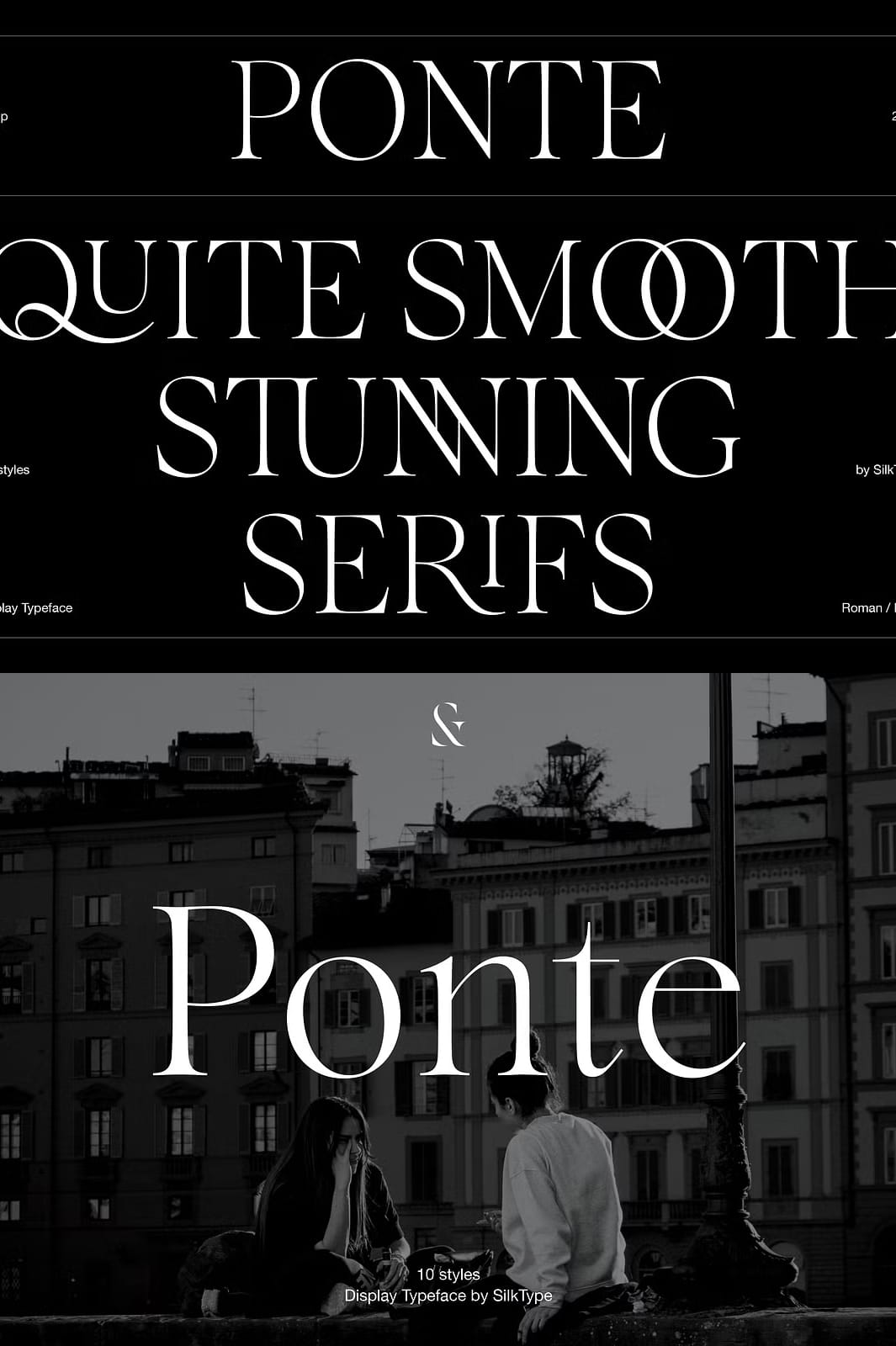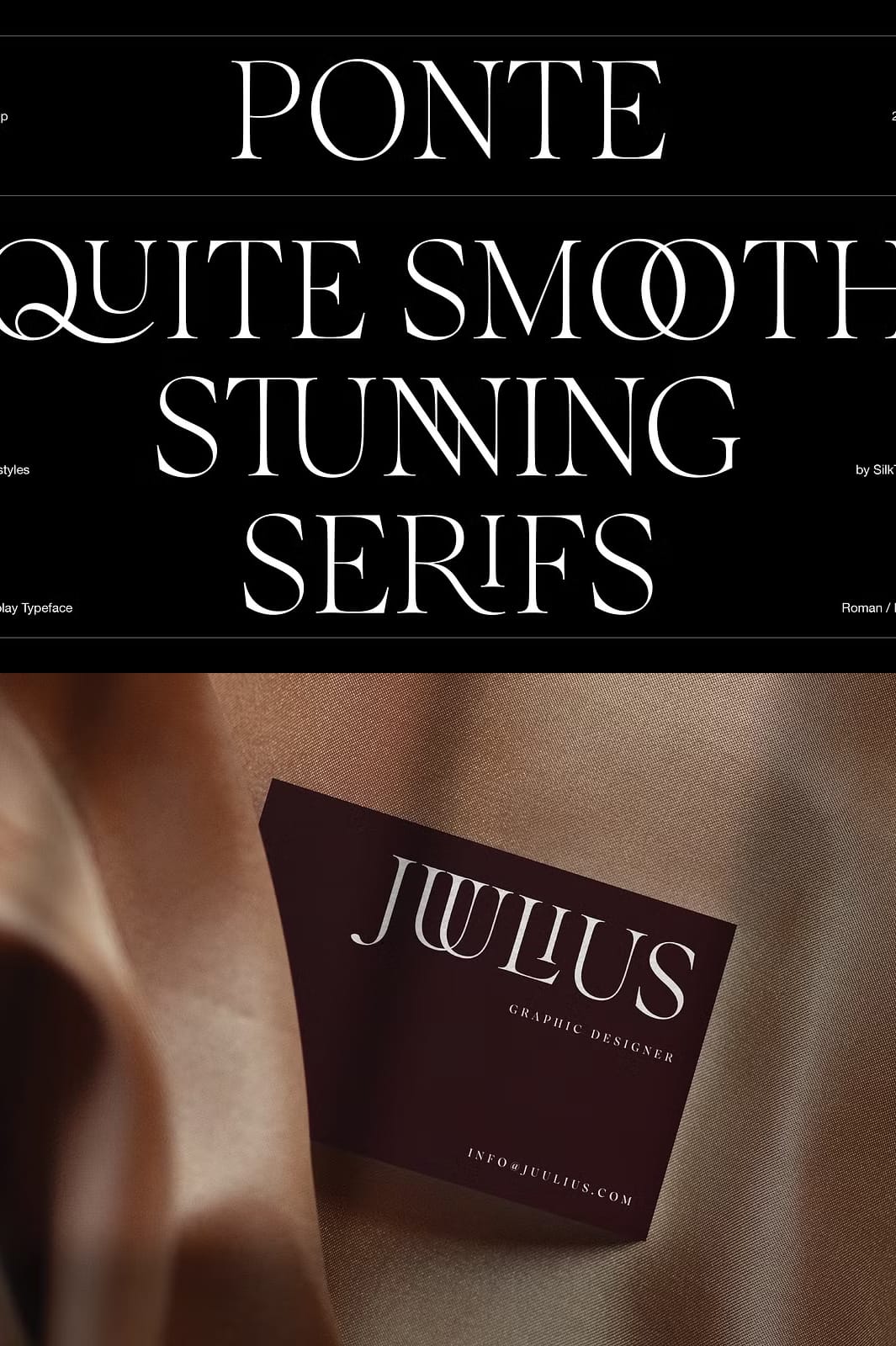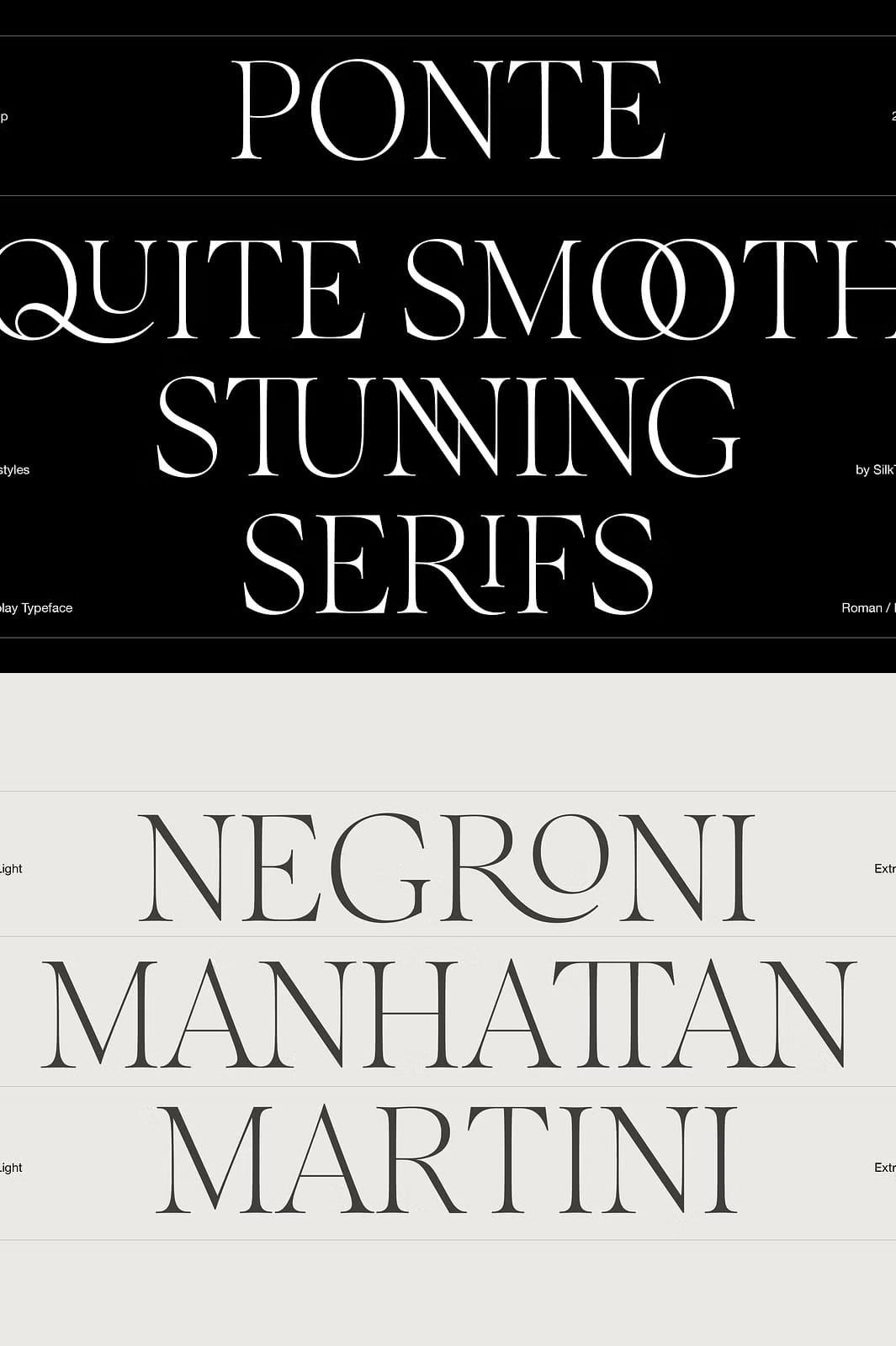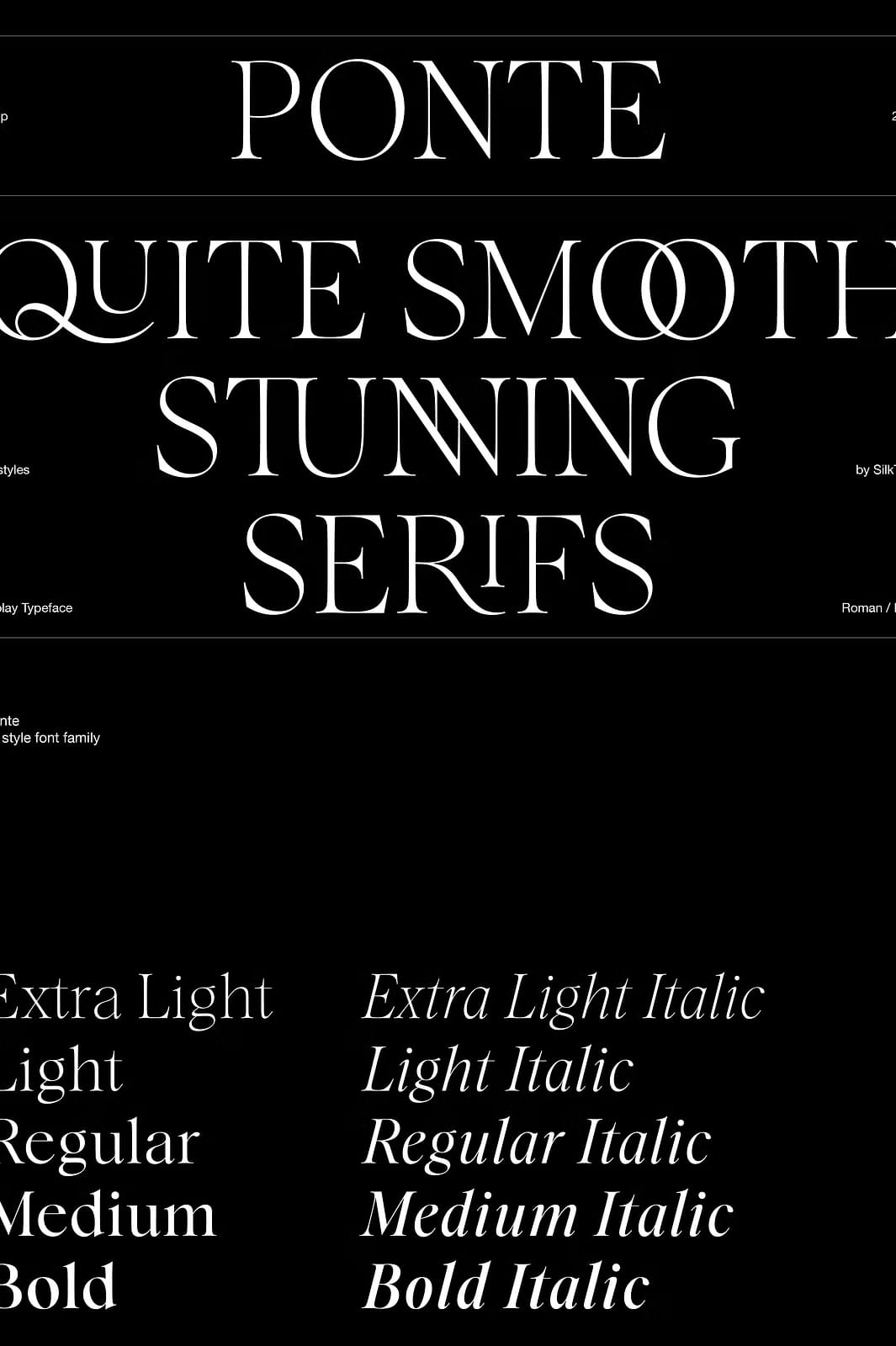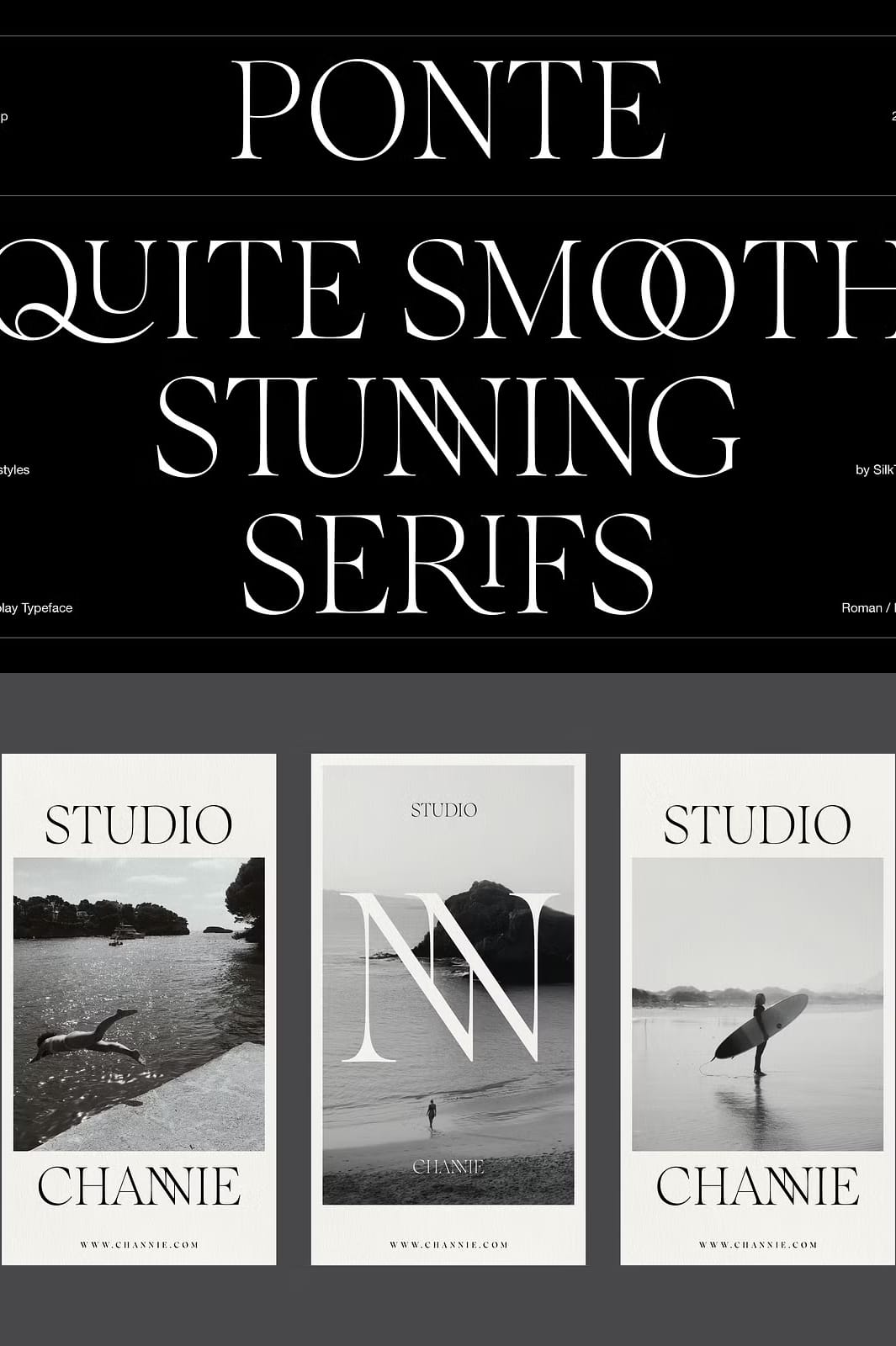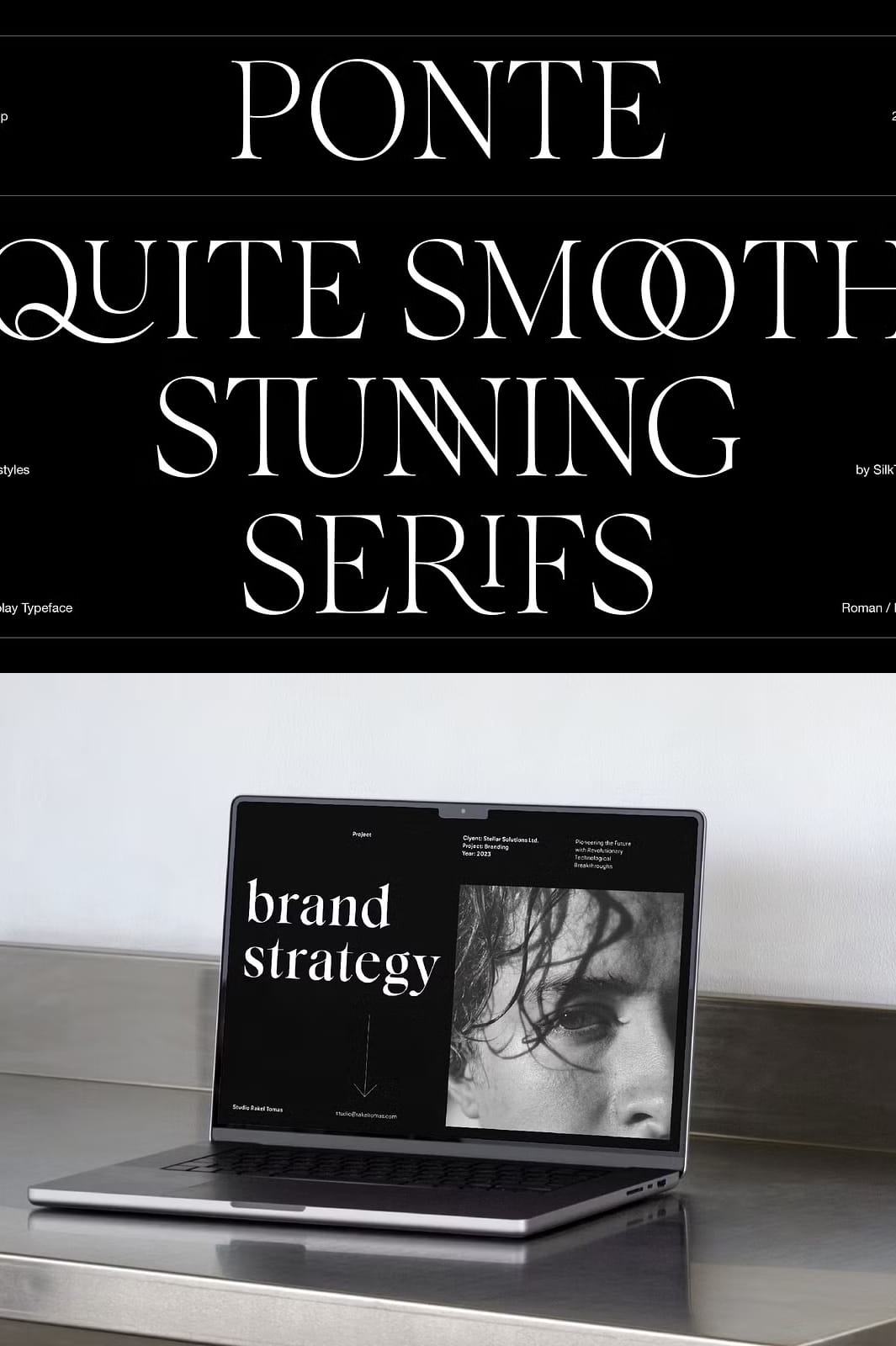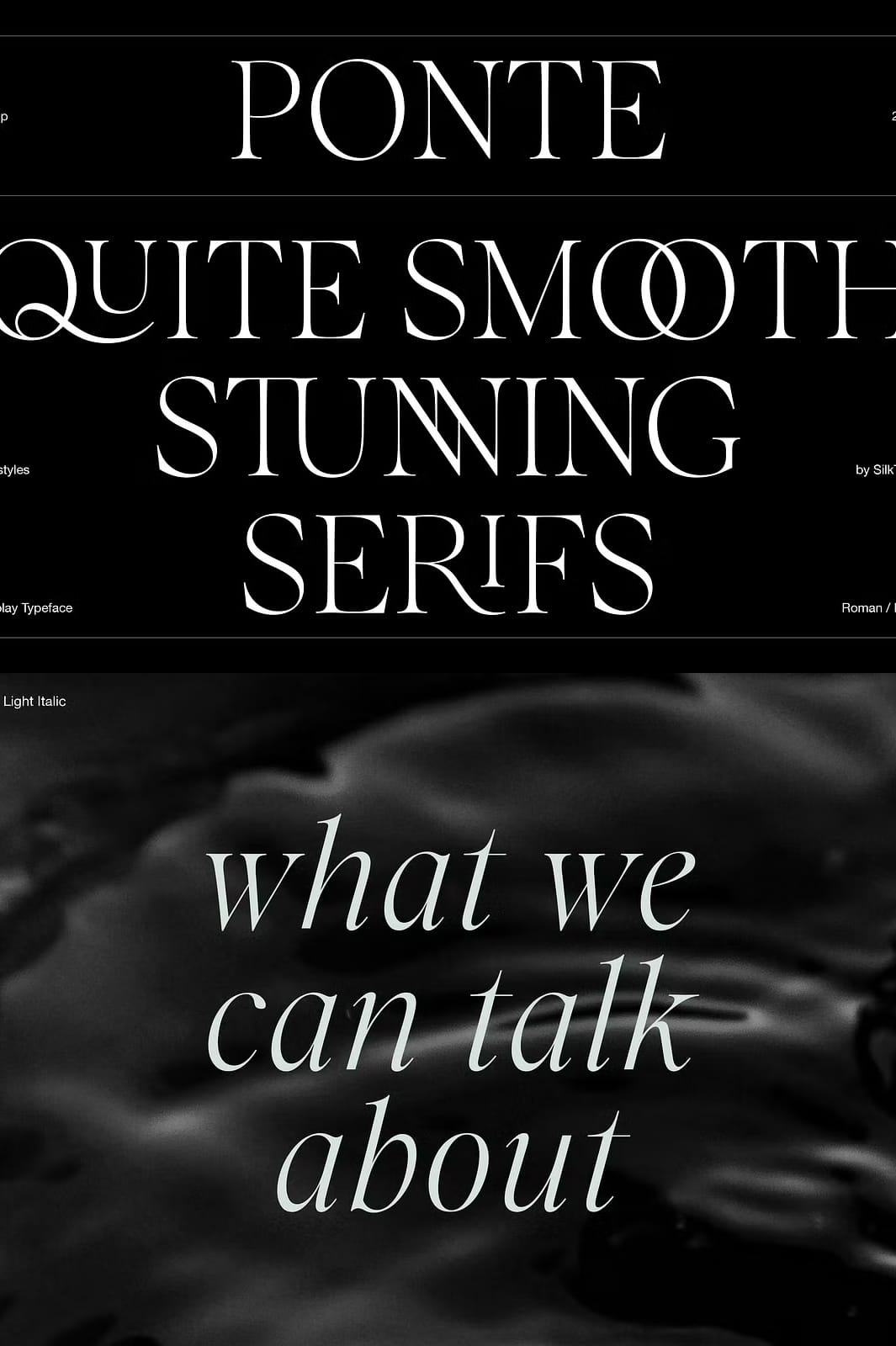
Ponte – 10 Font Family
Elegant and Impactful Typography for Headlines
Ponte is a striking high contrast display typeface designed to make your headlines and large text elements stand out with sophistication and style. Featuring smooth, refined serifs and a bold personality, Ponte is crafted to deliver maximum visual impact while maintaining elegance and readability.
Extensive Style and Weight Options
This versatile typeface family includes ten distinct styles, encompassing both roman and italic versions. With five carefully calibrated weights ranging from extra light to bold, Ponte offers designers a broad spectrum of choices to tailor typography perfectly to their project’s needs. Whether you require delicate light text or commanding bold headlines, Ponte adapts seamlessly.
Decorative Ligatures for Unique Expression
One of Ponte’s standout features is its collection of over 80 decorative ligatures. These stylistic alternates add flair and uniqueness to your typography, allowing you to create custom letter combinations that enhance the overall aesthetic of your design. The ligatures are ideal for branding, editorial layouts, packaging, and any project where distinctive typography is essential.
• High-Contrast Elegance: Smooth serifs and sharp contrasts create a refined and eye-catching look.
• Wide Range of Styles: Ten styles including roman and italic provide flexibility and creative freedom.
• Multiple Weights: Five weights from extra light to bold accommodate diverse design needs.
• Rich Ligature Set: Over 80 decorative ligatures add personality and uniqueness.
• Perfect for Display: Ideal for headlines, logos, posters, and sophisticated branding.
If you want to create designs that command attention with elegance and style, Ponte is the perfect typeface family for you. Its combination of high-contrast strokes, smooth serifs, and extensive stylistic options makes it a powerful tool for designers seeking to make a lasting impression. Download Ponte now and transform your creative projects with timeless sophistication.